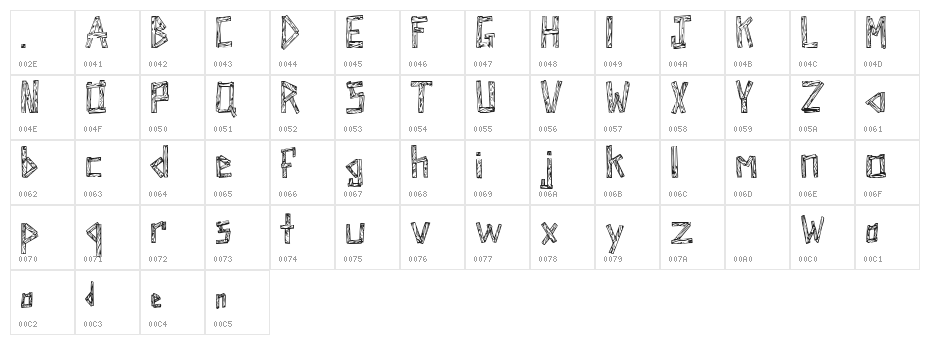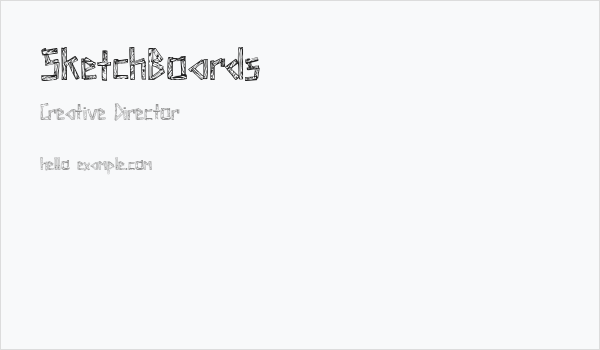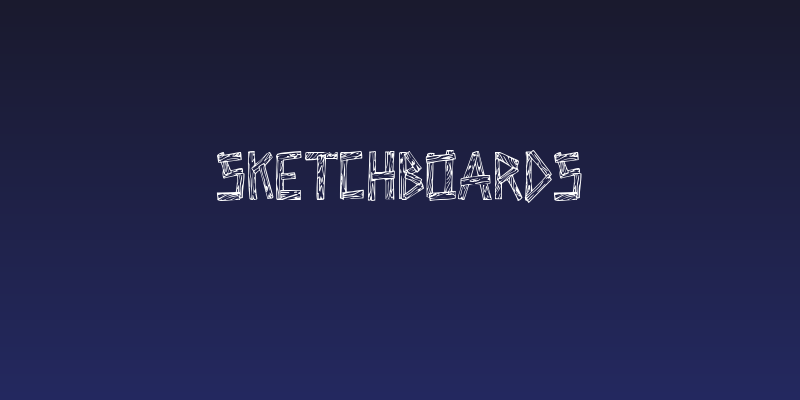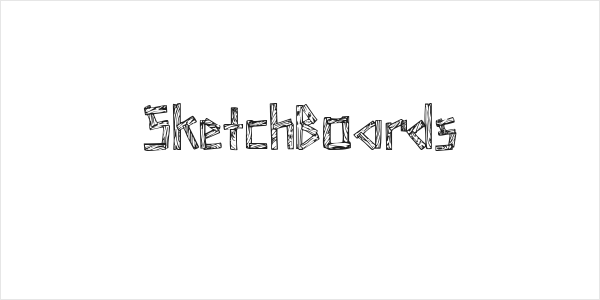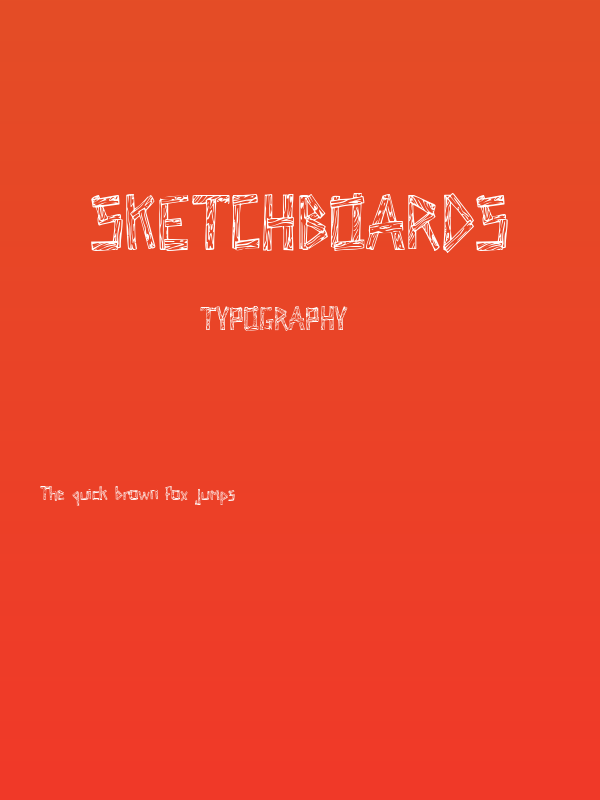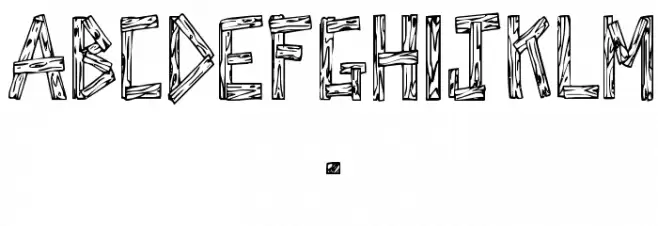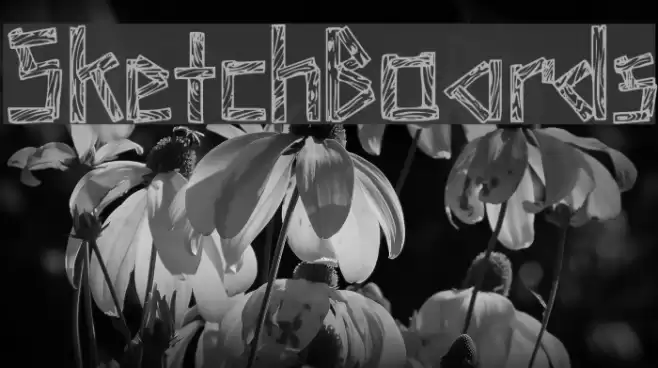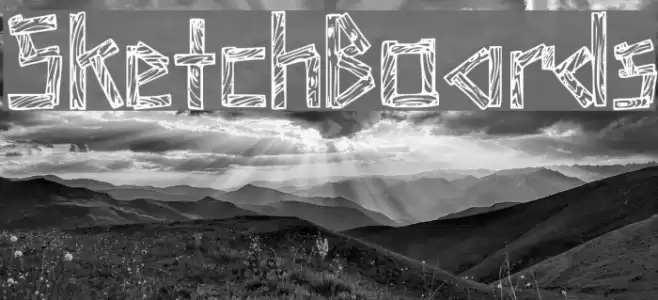
SketchBoards Font
SketchBoards Description
This font features a unique, hand-drawn style that mimics the appearance of sketchy, textured lines. Each character is constructed with irregular, overlapping strokes, giving it a dynamic and artistic feel. The uppercase and lowercase letters maintain a consistent style, with a playful and creative aesthetic. The numbers and special characters are similarly designed, ensuring a cohesive look throughout. This font is ideal for projects that require a touch of whimsy and individuality, such as children's book covers, creative posters, or artistic branding materials.
| Overall Style | Artistic, Playful |
| Proposed Projects | Children's books, creative posters, artistic branding, DIY crafts. |